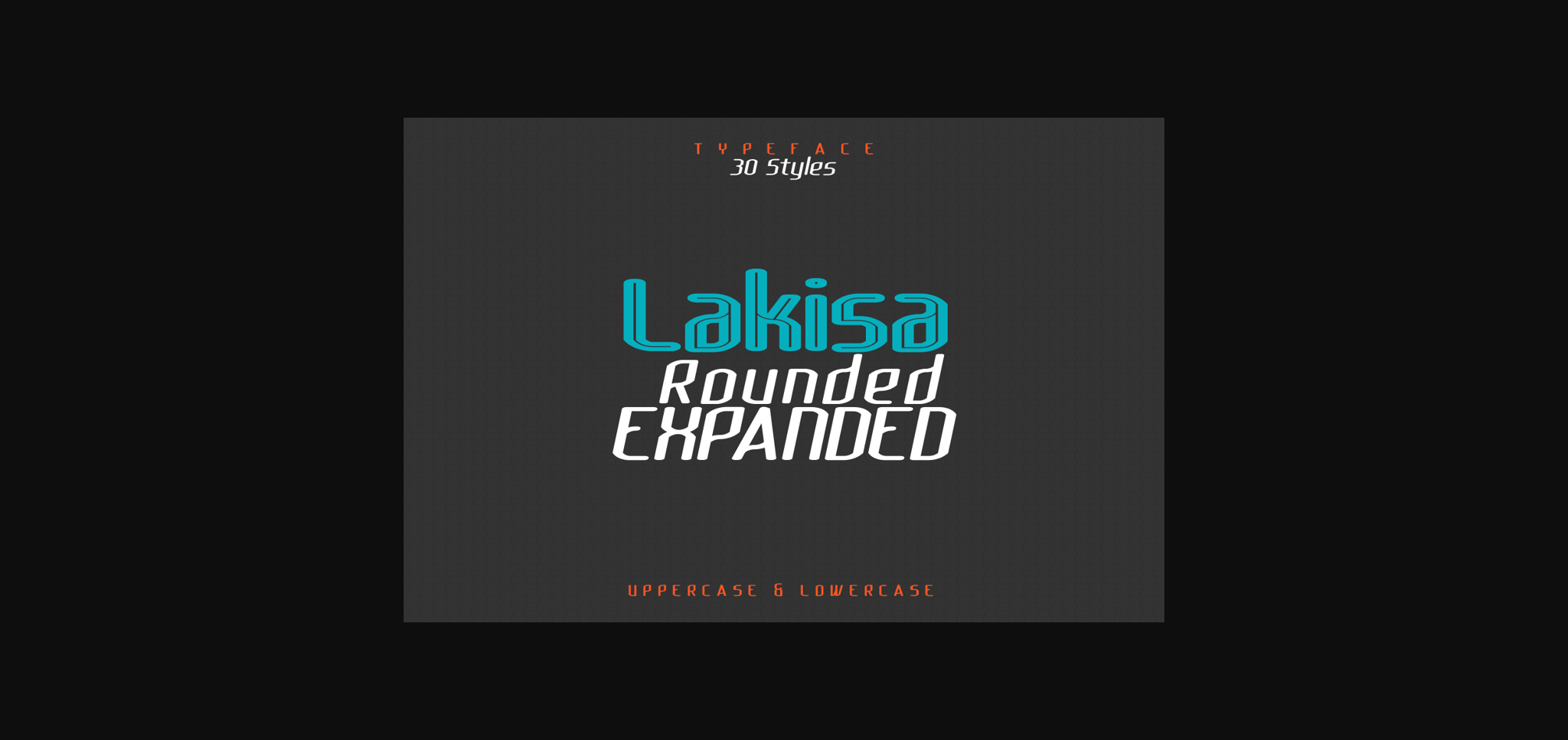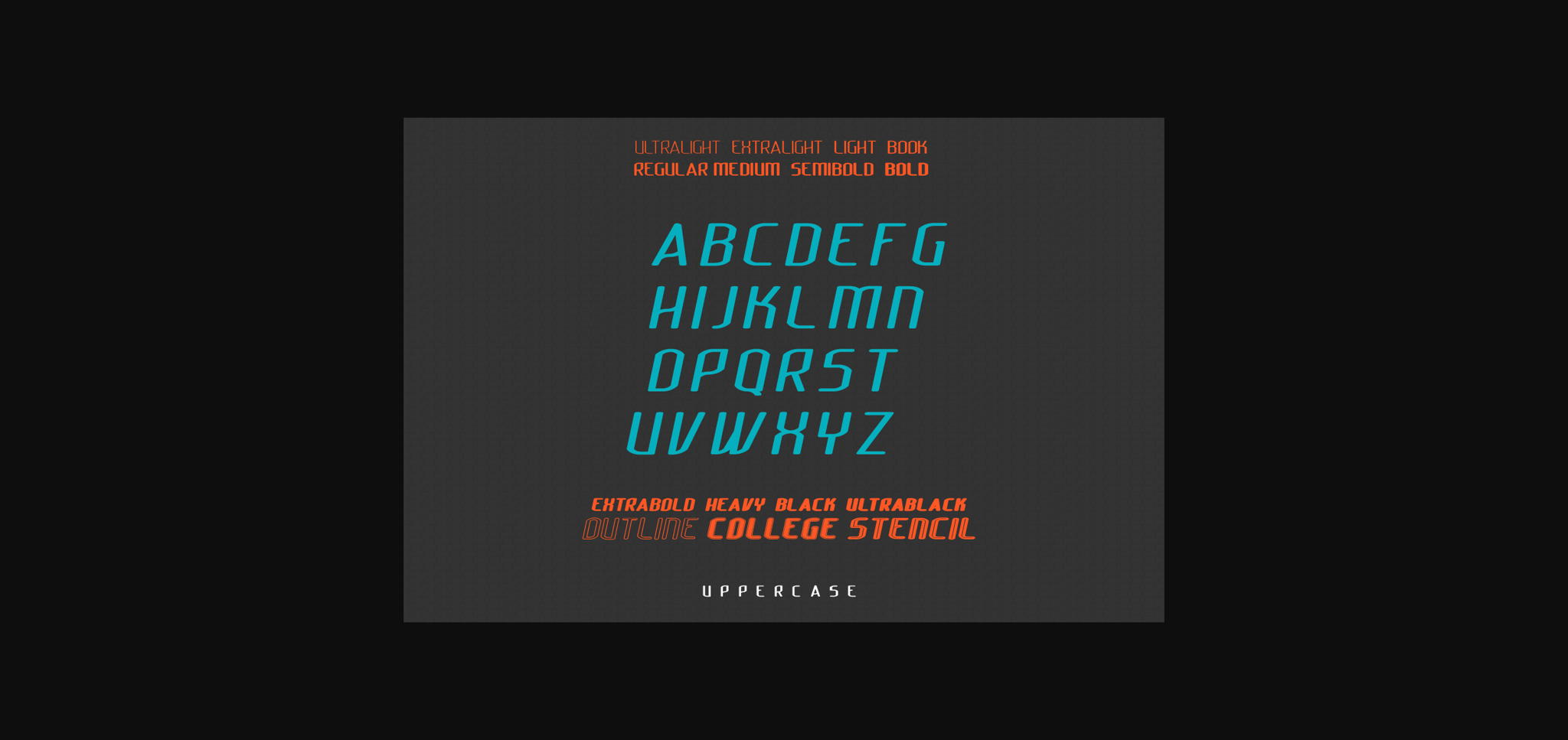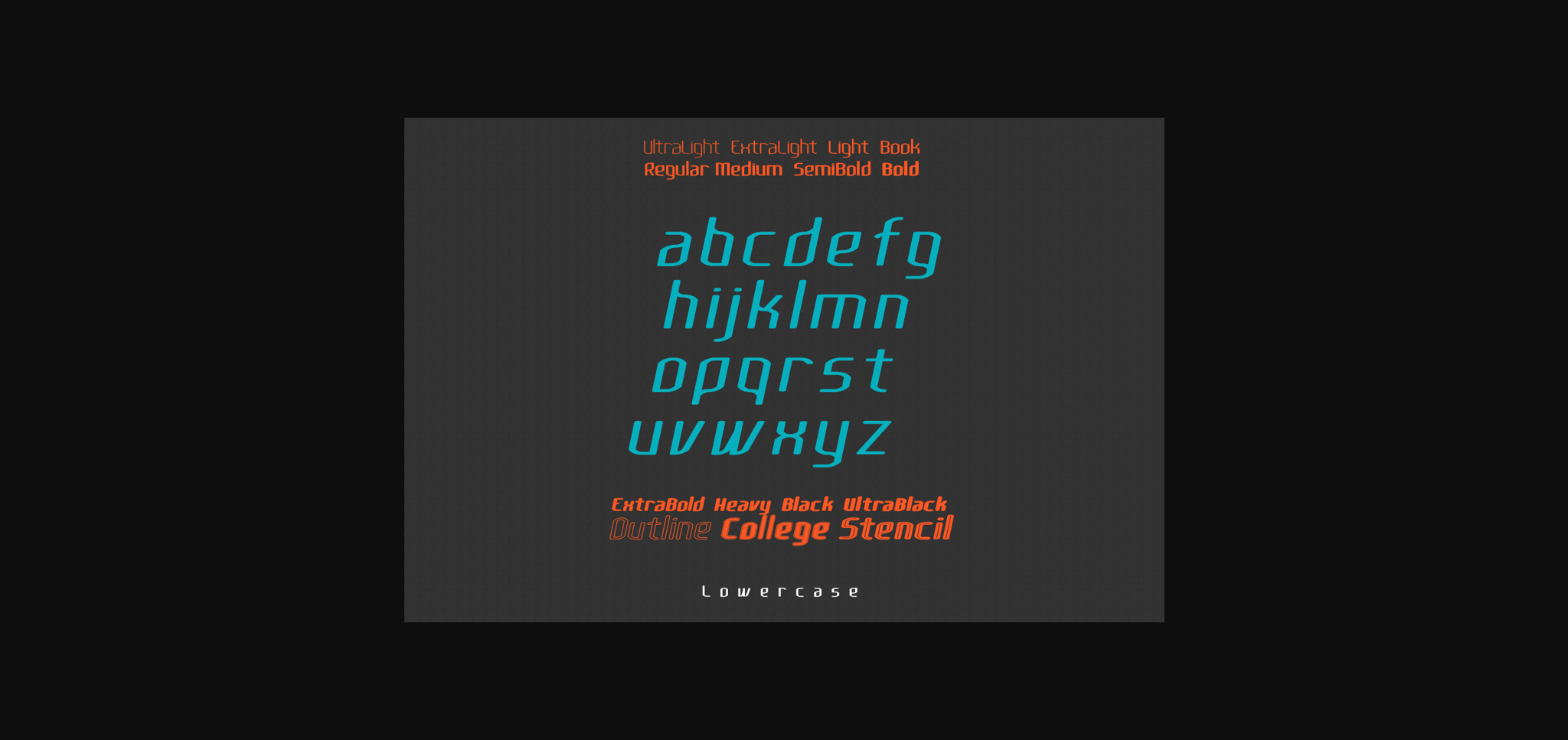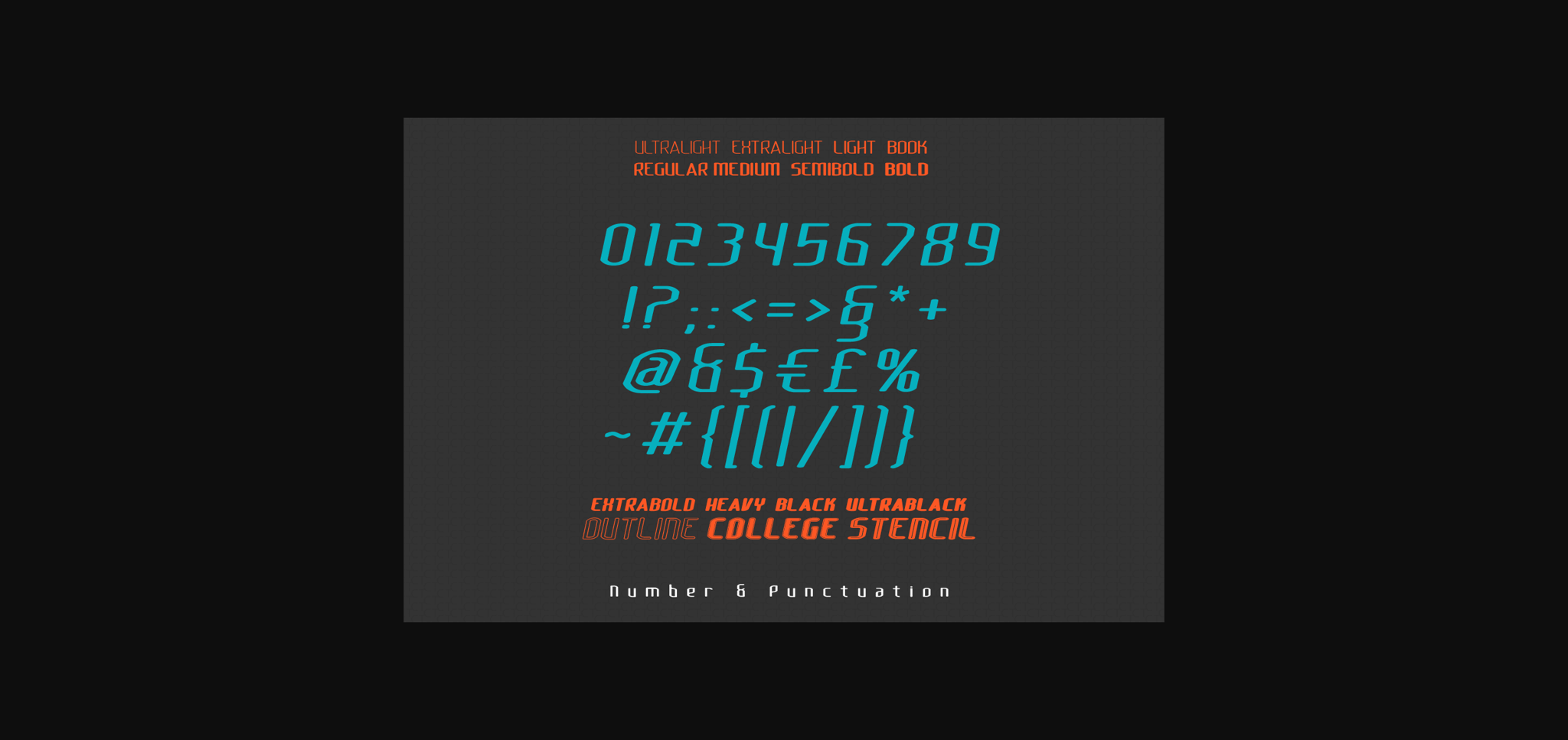
HomeSans Serif FontsLakisa Rounded Expanded Font Sans Serif Fonts Lakisa Rounded Expanded Font FacebookXPinterestWhatsApp 1 of 6 ... Lakisa Rounded Expanded Font Poster 2... Lakisa Rounded Expanded Font Poster 3... Lakisa Rounded Expanded Font Poster 4... Lakisa Rounded Expanded Font Poster 5... Lakisa Rounded Expanded Font Poster 6... About Lakisa Rounded Expanded Font Lakisa Rounded Expanded is a gorgeous sans serif with a modern and futuristic feel! With its neat and balanced arrangement of letters, this typeface will look outstanding in both formal and non-formal designs. DOWNLOAD NOW People also explored Hot Chips Font Ela Sans Jawo Font Fishing Font Royaume Monogram Fairy Font Bee Happy Monogram Font Resplendent Font Memories with You Font 415 0 TagsLakisa Rounded Expanded Font Previous articleLakisa Rounded FontNext articleOpera Font LEAVE A REPLY Cancel reply Comment: Please enter your comment! Name:* Please enter your name here Email:* You have entered an incorrect email address! Please enter your email address here Website: Save my name, email, and website in this browser for the next time I comment. Personal Use Free Angola Beach Personal Use Free Read more about this font Dealisya Personal Use Free Read more about this font Frozdotre Personal Use Free Read more about this font Eits Personal Use Free Read more about this font BLOG Using Fonts in Digital Marketing: Tips to Strengthen Your Brand Identity In the realm of digital marketing, every visual element plays a crucial role in shaping a brand's identity, and fonts are no exception. The... How to Cut Any Font on Cricut: Convert a Font to SVG (Free) Best Fonts for YouTube Videos: Make Your Thumbnails Stand Out Exploring Font Trends